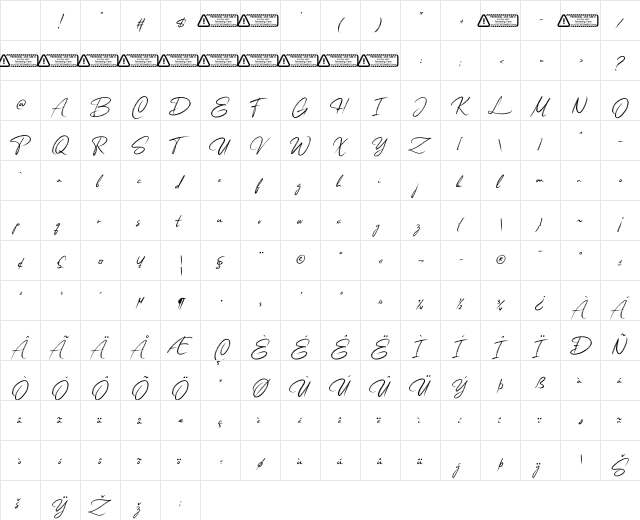
Storybrushes PERSONAL USE ONLY! flows with the natural rhythm of handwritten lettering, making it ideal for designs that call for warmth and personal expression.